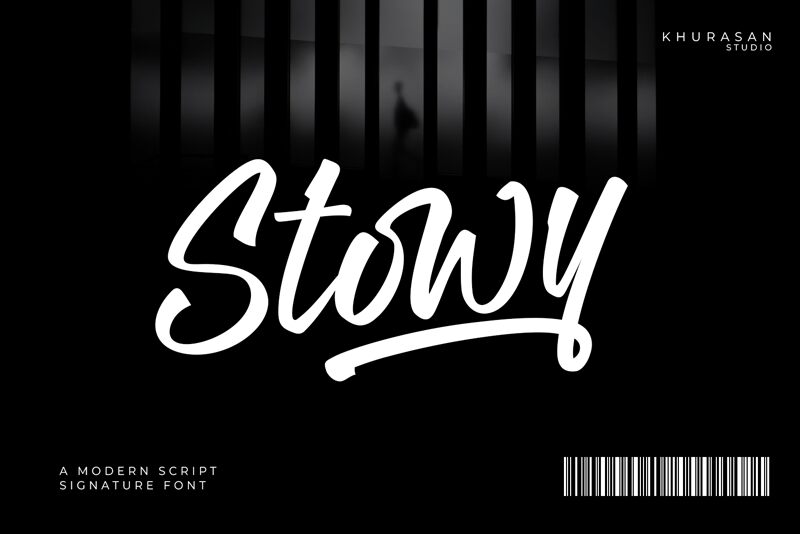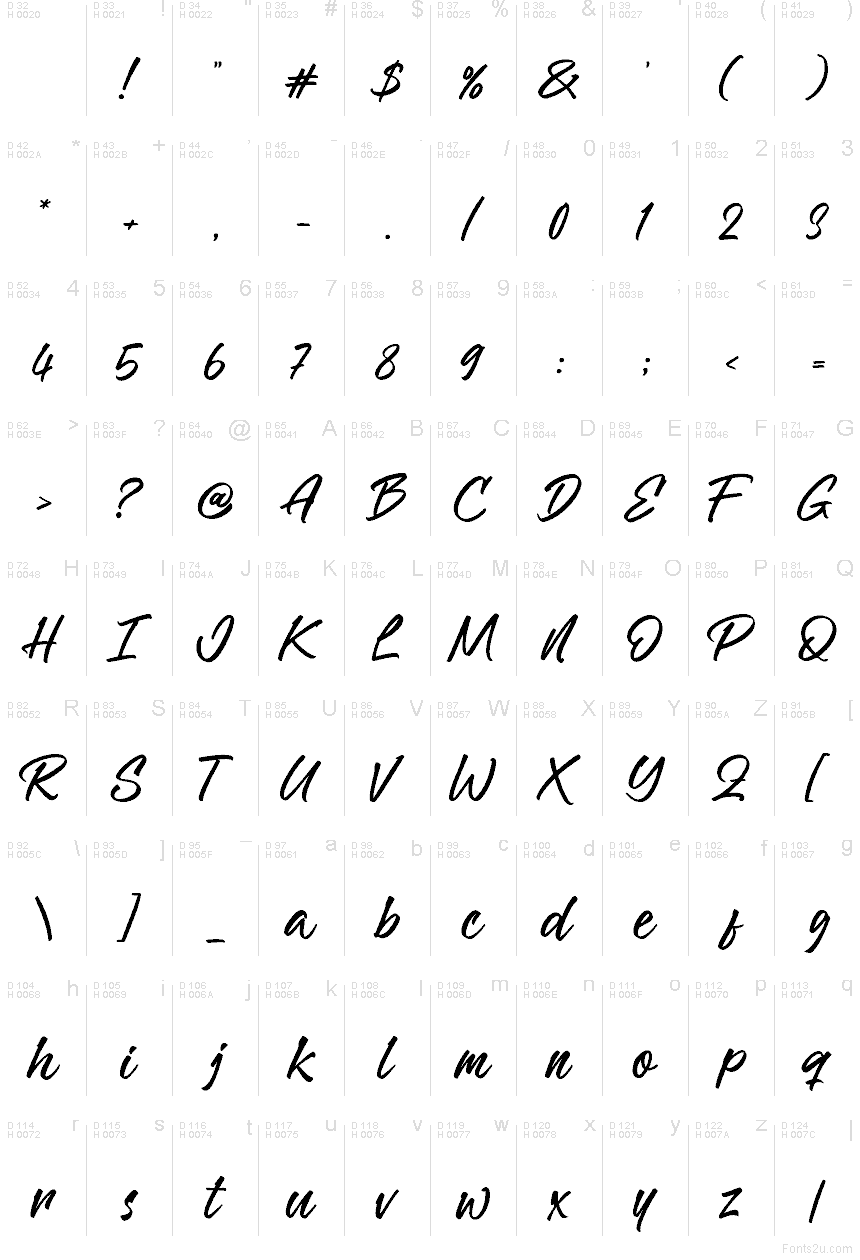
Stowy by Khurasan is a free handwritten font with the sweep and confidence of oversized marker lettering. Broad, changing strokes narrow into sharp joins and long finishing flicks, giving the letters a quick forward motion. The uneven connections keep it personal.
Independent fashion labels and lively cafes could use it for logos, packaging, and window signage seeking an informal signature. Its large gestures also suit music posters and social graphics, especially when the lettering is meant to feel immediate rather than polished. The extended strokes can echo hand-drawn illustrations or become part of a loose border around product artwork.